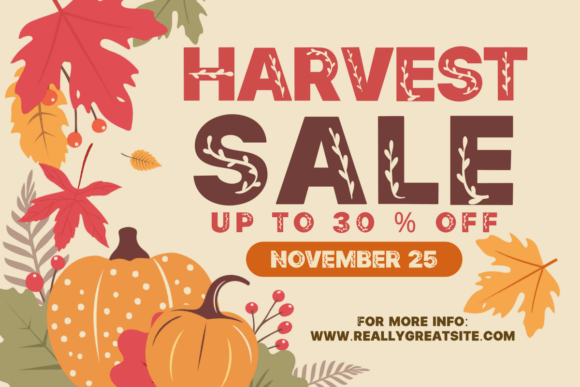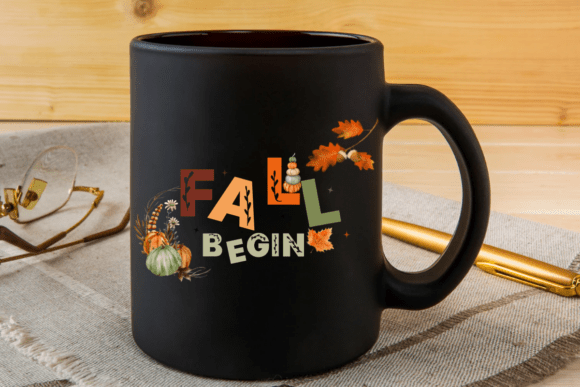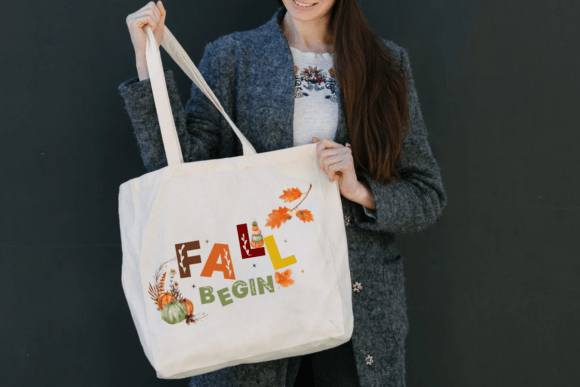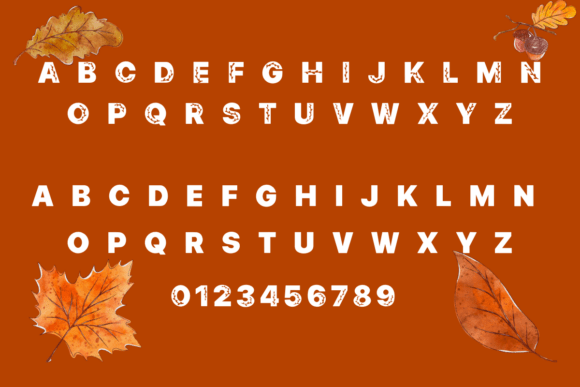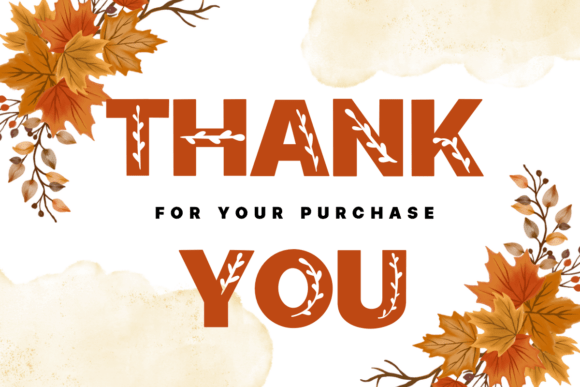
Introducing Fall Begin: The Ultimate Decorative Font for Designers and Crafters
Are you tired of using the same old fonts for your designs and crafts? Look no further! We’re excited to introduce Fall Begin, a diversely decorative font that’s about to take your creativity to the next level. With its unique charm and versatility, Fall Begin is the perfect addition to any design project, whether you’re a seasoned designer or a crafty DIY enthusiast.
What is Fall Begin Font?
Fall Begin is a beautifully crafted font that’s designed to add a touch of elegance and whimsy to any design. Its decorative style is perfect for journaling, crafting heartfelt greetings, and creating eye-catching content. But what sets Fall Begin apart is its incredible versatility. Whether you’re working on a digital project or a physical one, this font is sure to make a statement.
Endless Possibilities with Fall Begin
So, what can you do with Fall Begin? The possibilities are endless! Here are just a few ideas to get you started:
- Vibrant Banners: Create stunning banners for your website, social media, or events with Fall Begin’s unique charm.
- Eye-Catching Content: Add a touch of elegance to your blog posts, articles, or social media updates with this beautiful font.
- Personalized Products: Design personalized mugs, shirts, and other products that will make your friends and family feel special.
- Stationery Design: Elevate your stationery design with Fall Begin’s decorative style, perfect for creating stunning journals, planners, and greeting cards.
- Social Media Posts: Increase engagement on your social media posts with Fall Begin’s eye-catching font.
- Card Creation: Take your card creation game to the next level with this beautiful font, perfect for birthdays, holidays, and special occasions.
Why Choose Fall Begin Font?
So, why choose Fall Begin over other fonts? Here are just a few reasons why designers and crafters love this font:
- Unique Style: Fall Begin has a distinctive style that’s sure to make your designs stand out.
- Versatility: This font is perfect for a wide range of design projects, from digital to physical.
- Elegant and Whimsical: Fall Begin strikes the perfect balance between elegance and whimsy, making it perfect for a wide range of design projects.
- Easy to Use: This font is easy to use and pairs perfectly with a wide range of design software.
Tips for Using Fall Begin Font
Here are a few tips for getting the most out of Fall Begin:
- Experiment with Colors: Fall Begin looks stunning in a wide range of colors, so don’t be afraid to experiment and find the perfect hue for your design.
- Mix and Match: Try pairing Fall Begin with other fonts to create a unique and eye-catching design.
- Play with Sizes: Experiment with different font sizes to add depth and interest to your design.
In conclusion, Fall Begin is a game-changing font that’s perfect for designers and crafters who want to take their creativity to the next level. With its unique style, versatility, and ease of use, this font is sure to become a favorite in your design toolkit. So why wait? Experience the magic of Fall Begin for yourself and let it transform your design world!
Whether you’re a seasoned designer or a crafty DIY enthusiast, Fall Begin is the perfect addition to your design project. So go ahead, get creative, and see what amazing designs you can come up with using this incredible font!